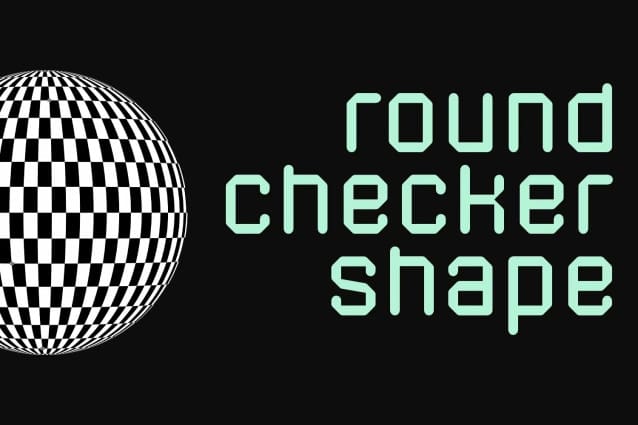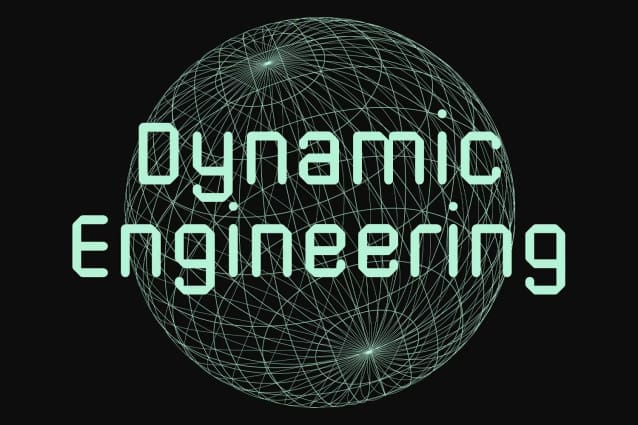
Camcode Techno Font
Camcode Techno Font is a semi Bitmap style with round edges Display sans font. Regular stroke, fun character with a bit of ligatures and alternates. To give you an extra creative work. Camcode font support multilingual more than 100+ language. This font is good for logo design, Social media, Movie Titles, Books Titles, a short text even a long text letter and good for your secondary text font with script or serif. Make a stunning work with Camcode font.